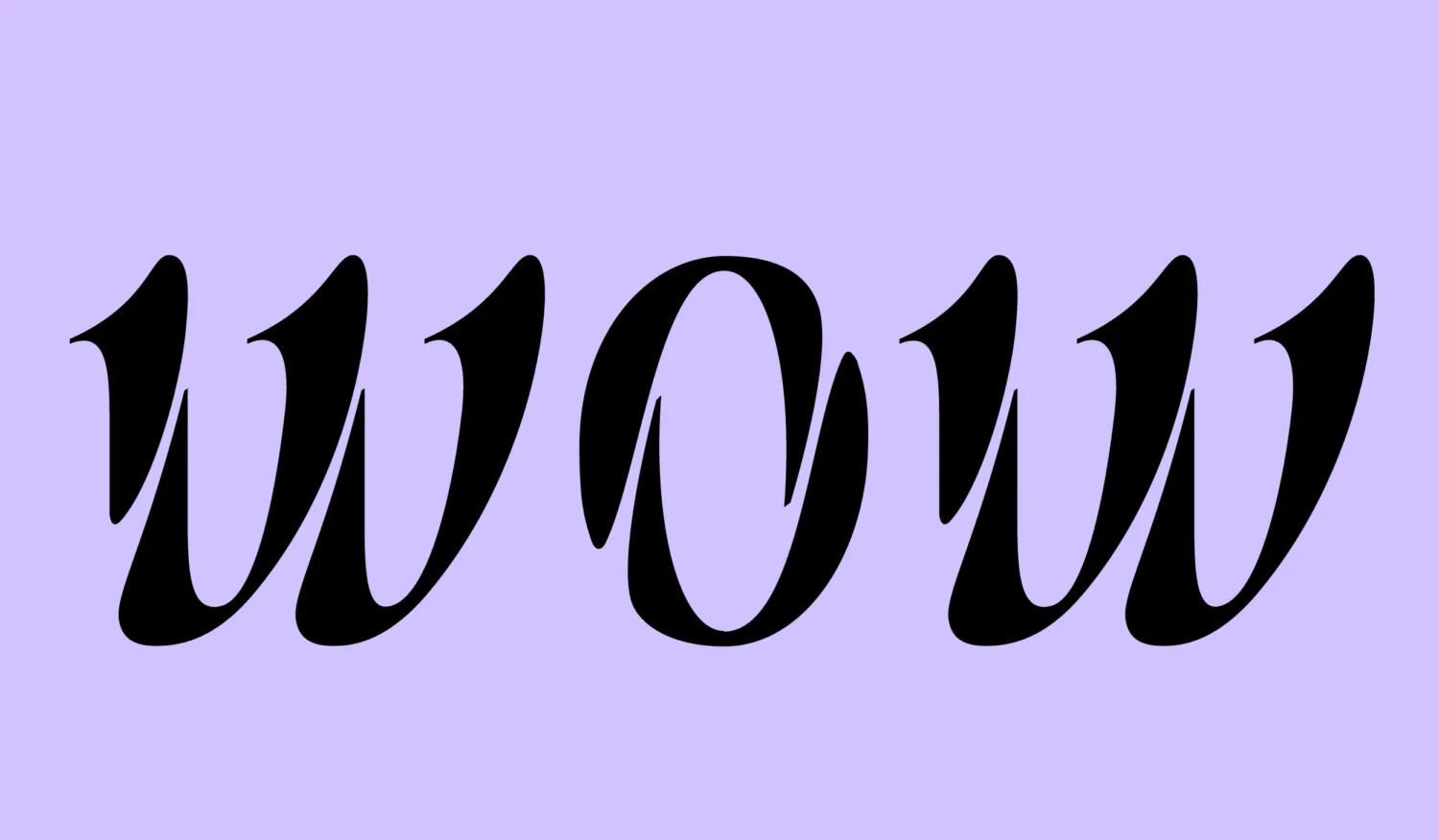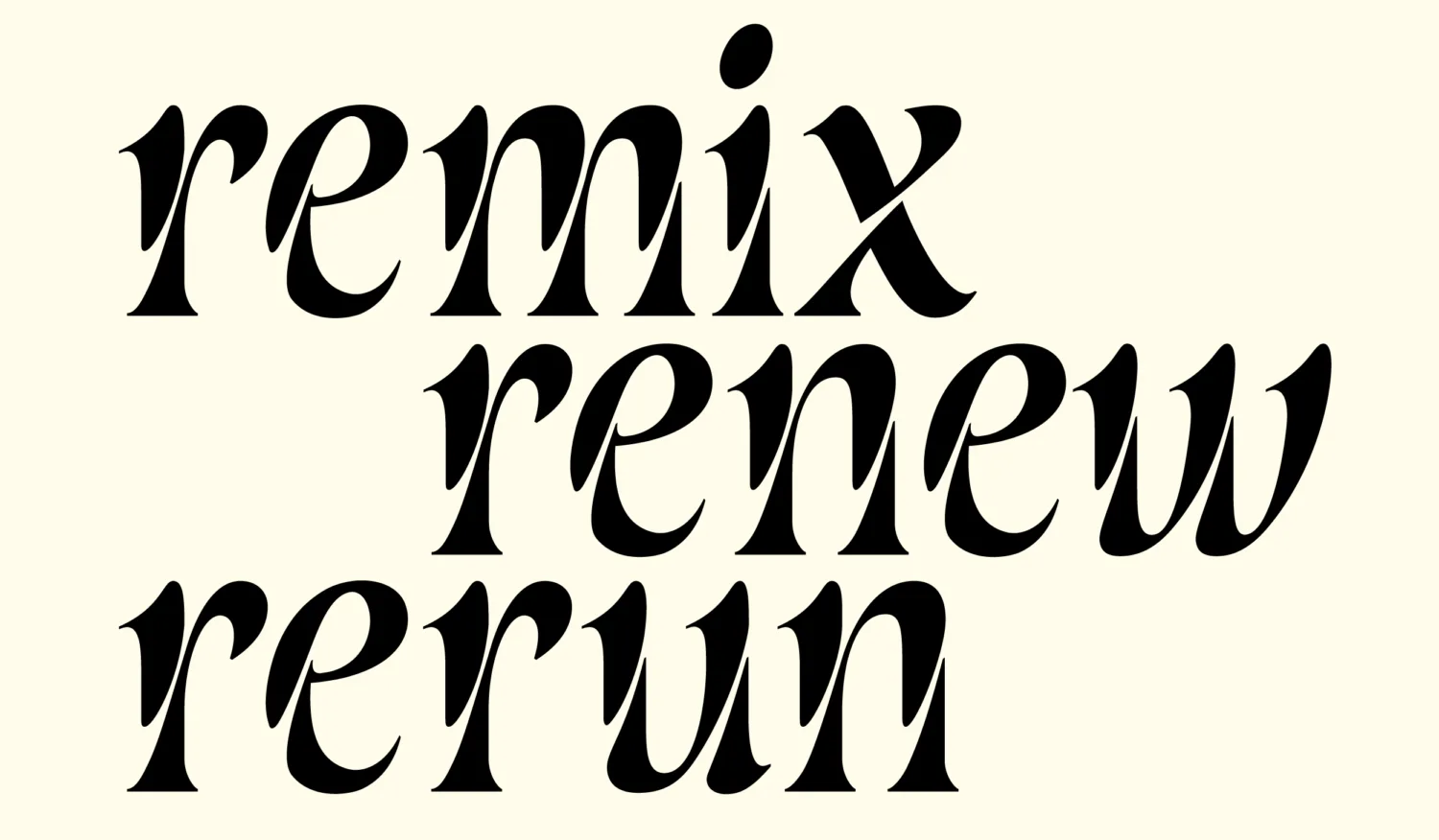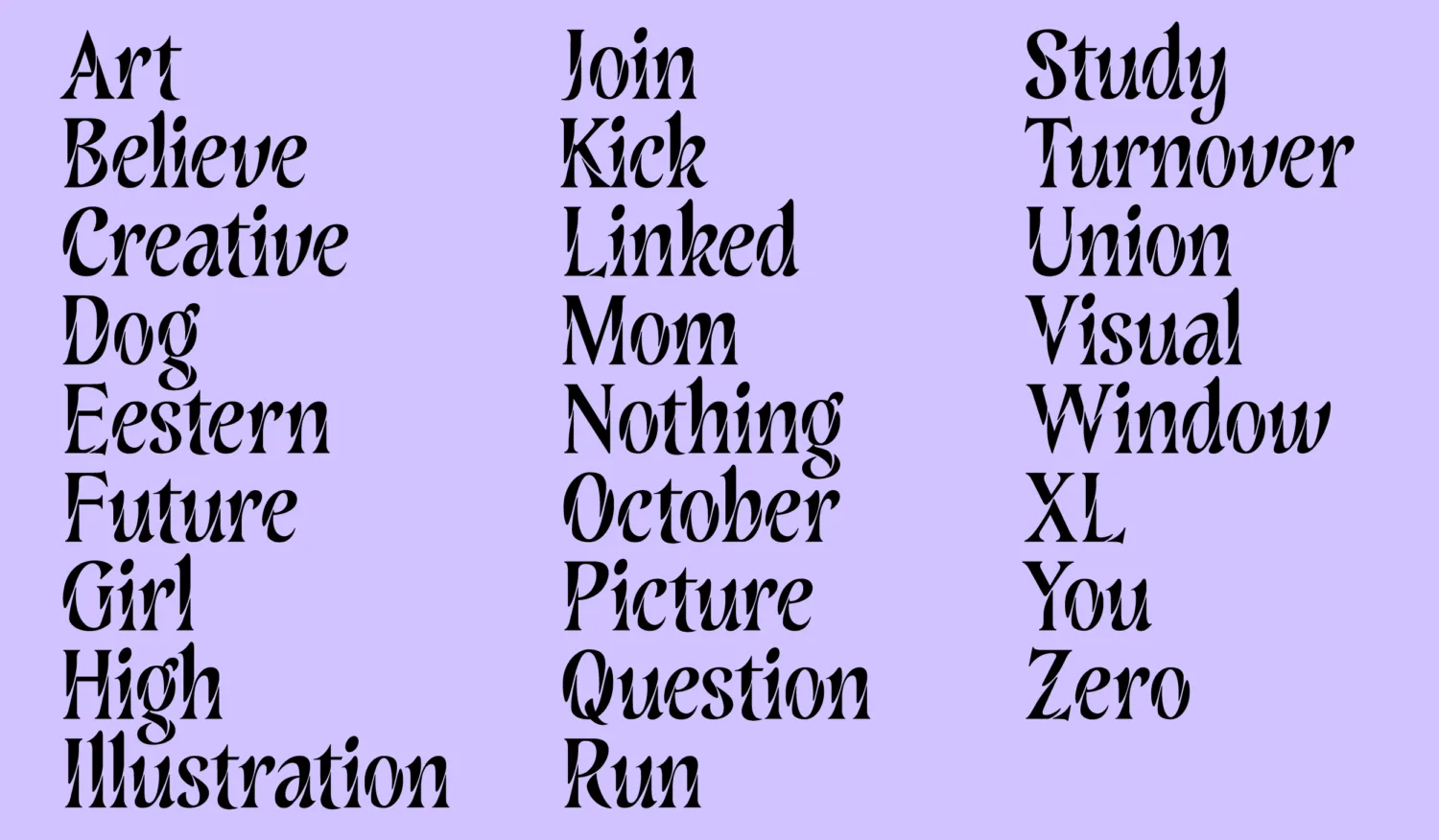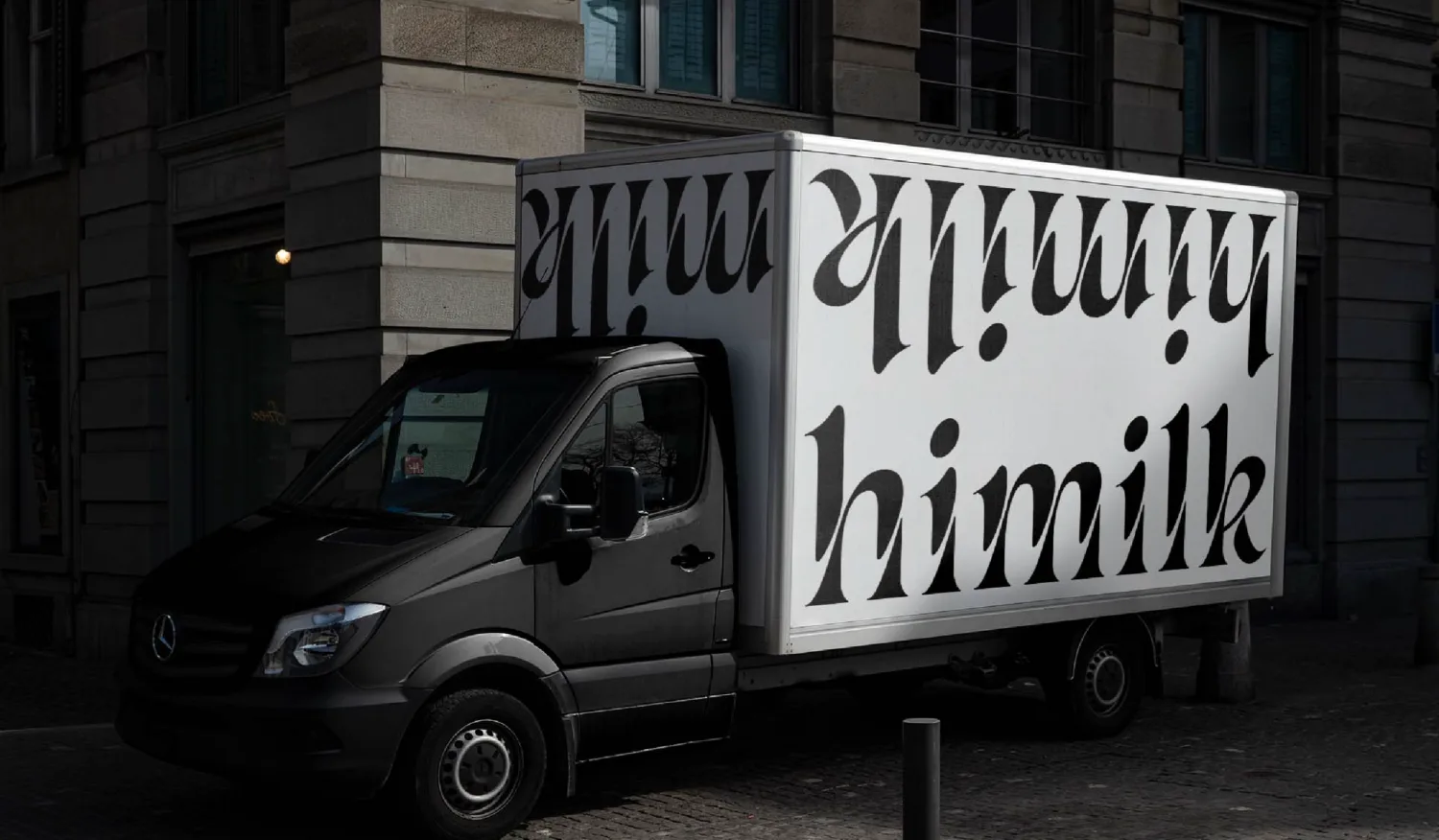
Recently, we had the opportunity speak with Ran Zhen on the subject of climbing the ladder and becoming a senior designer in the (type) design industry as a woman. A multidisciplinary senior designer at Pentagram, New York, Ran has built up a ton of expertise in this area, so we’re super excited to share this conversation with you today.
During her five year tenure at Pentagram, Ran has worked on a wide range of projects spanning from tech brands such as Google and Waze, to various cultural institutions. In 2021, she designed the logo for the NYDIG Bitcoin company and had a credit on a tea box design for the movie Swan Song. She graduated from Maryland Institute College of Art in MFA Graphic Design in 2016, where she was awarded the MICA Grad Show 2016 prize for the project: LOOK/HEAR, an interactive sound-based typeface design project which proved as captivating as it was innovative. Ran has since won a wide range of awards and built up a stunning portfolio of varied work.
At the beginning of this year, Ran finished her new display typeface, Remix, which we will be getting a glimpse of today – it’s a stencil typeface that mixes the negative space of an italic font with the positive forms of a classic serif, and we’re obsessed. Whilst everybody’s journey is different, we hope that this interview gives you some insight into what it takes succeed in becoming a senior designer, as well as some ideas about what we can do collectively to raise women up in the type industry.
Can you describe your journey to getting where you are now. How did you break into the industry and build your way up?
I love art and visual design; when I was young, I was always imagining and drawing creatures, so I have studied art since I was in high school. And then I studied visual communication design at Central Academy of Fine Arts, China’s most prestigious and renowned art academy. After graduation, I started my journey in the USA, to become more professional in the design field. I like to study and be a master of new visual approaches, from hand drawing skills like watercolour and oil painting to computer design software in 2D, 3D and animation – it gives me the freedom to create things the way I like.
During the work experience at Pentagram, I started to really look into creating timeless and unique graphics, typography, and display typeface design, and also building a consistent visual system for branding design. For example, for the Waze project, a subsidiary of Google that provides satellite navigation software, I created a very useful grid system to draw the cutie creatures that displayed in the app as the driver’s mood avatar. Every time I take an Uber, I can see the driver using the app. I’m very proud of the app icon and those avatars showing in the real world.
Do you feel women face challenges climbing the ladder in the type & broader design industry? Do you think there is a need for greater representation of women in senior design roles?
I think there’s a challenge when presenting works and communicating in a woman’s body. But I also think if there is good design and good artwork, then whoever made it – woman, man or a child – people will enjoy the visual work based on the creative thinking and visual results. I will just do my best to focus on creating good works.
But yes, more needs to be done to let people know women are talented and working hard in the design area. I think we should organise more lectures, exhibitions and news articles about women in design, and create more opportunities to expose the woman’s works to the world.
What tips would you give to young women about working towards becoming a senior designer?
Keep learning, keep exercising, keep working on more projects and finding opportunities to present your work. Great work will be seen one day, but before that, we need to develop ourselves. Be aware of new design trends, new design tools, and learn to see and understand what makes good concepts not only in graphic design, but also in architecture, movies, art, or other areas – a senior designer needs to be able to lead the visual direction of a team, and make critical decisions on the final visual outcome.
And lastly, what do you love most about your work? How would you encourage women to nurture their creative practice and find what makes them happy in their work?
I love creativity, I’d like to be a person who can do a great design and present it to the world, and so
I encourage all the women designers to be strong and confident about designing and presenting. No matter if there is a client or not, no matter if there is pay or not. If you think your project is worth doing, just do it. You may not be happy about the processing and result immediately, but all the past experience is the tool for the future good works and success.